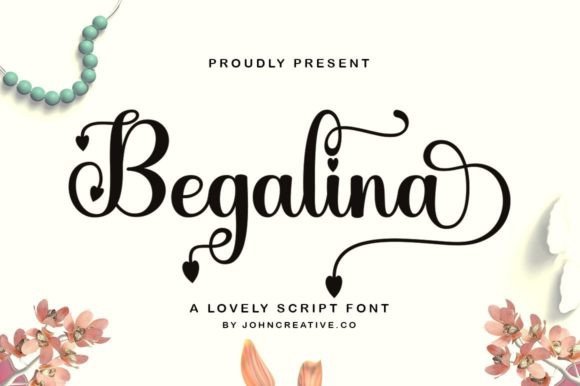
Introducing the Begalina Font, a stunning creation by the talented designer, mr.johncreative.co. This script font exudes sophistication and elegance, making it the perfect choice for anyone looking to add a touch of charm and authenticity to their projects.
With its unique handwritten style, Begalina Font captures attention and delivers any message with confidence. Whether you're designing cards, labels, or creating branding materials, this font has you covered.
What sets Begalina Font apart from the rest is its impressive versatility. You can use it to elevate your personal projects, or to bring a professional touch to your business materials. The font is PUA encoded, allowing you to access all glyphs and swashes with ease. This means you can let your creativity flow and create stunning designs without any limitations.